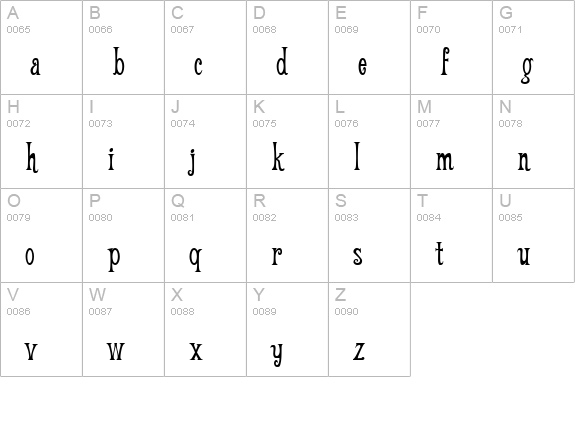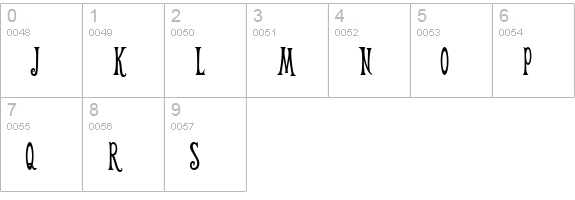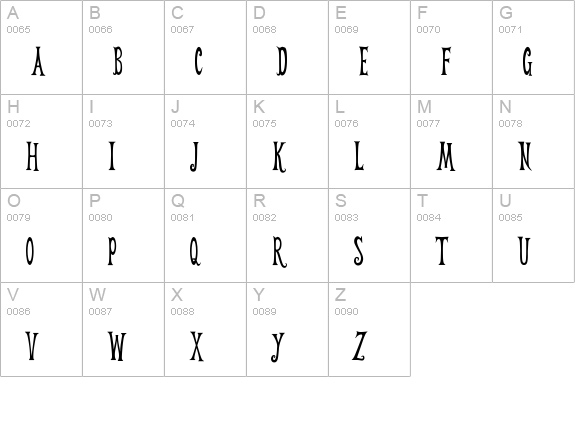
Weehah font is a beautifully crafted typeface that embodies a sense of playfulness and whimsy. Its charming and quirky letterforms make it perfect for adding a touch of fun to any design project. With its unique combination of rounded edges and bold strokes, Weehah font is sure to catch the eye and captivate the viewer. What makes Weehah font even more delightful is that it is available for free! Yes, you read that right. This incredible font can be downloaded at FontsMarket.com without any cost. It's a fantastic opportunity for designers, creatives, and anyone looking to add a touch of personality to their work without breaking the bank. Whether you're designing a logo, creating a poster, or even just sprucing up a social media post, Weehah font is the perfect choice. Its versatility allows it to be used in a variety of contexts, from lighthearted and casual designs to more professional and sophisticated projects. The possibilities are truly endless. So why wait? Don't miss out on the chance to enhance your designs with the free Weehah font. Head over to FontsMarket.com and download it today. The only limit is your own creativity. Let Weehah font bring a sense of joy and whimsy to your next project!